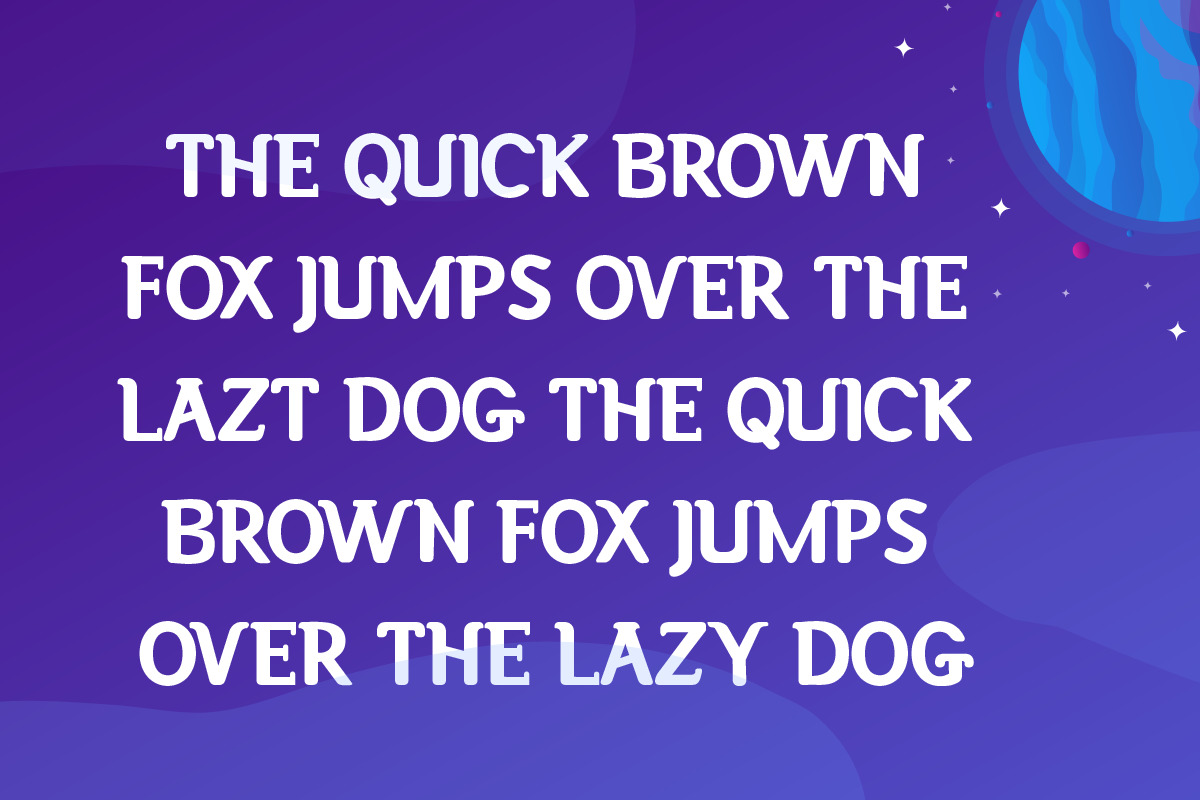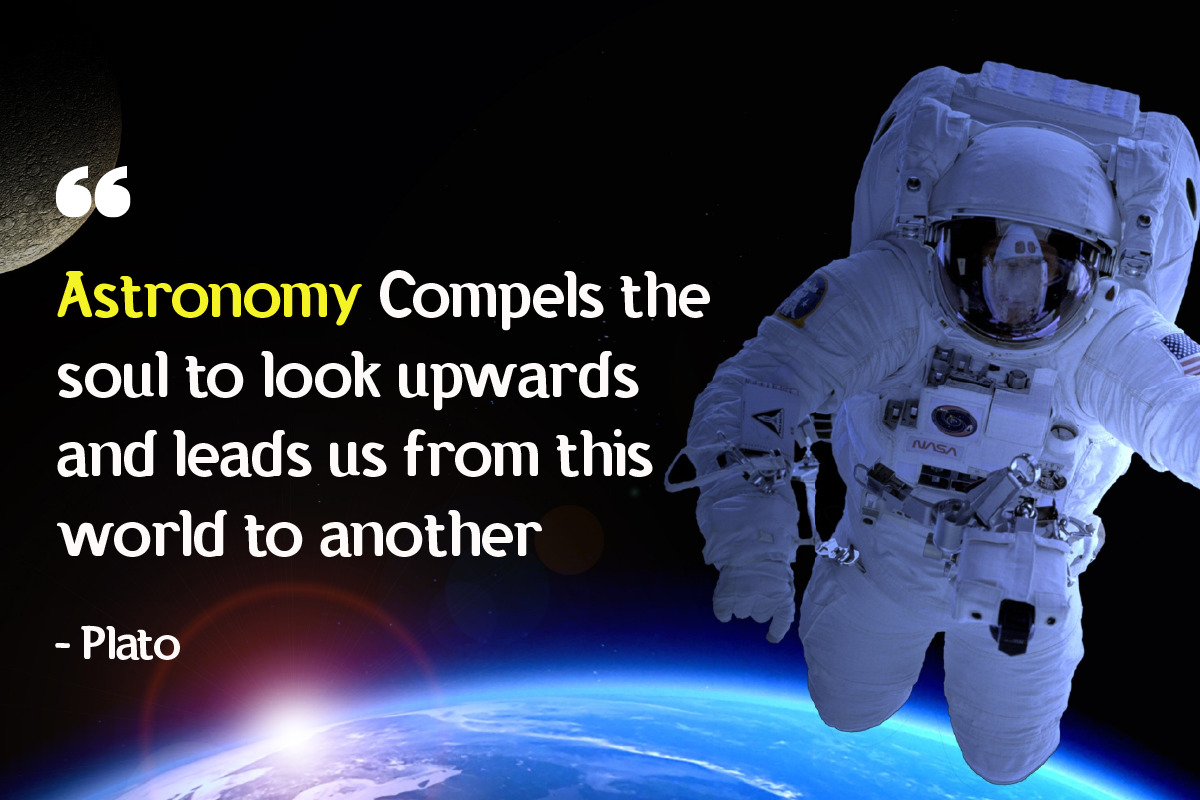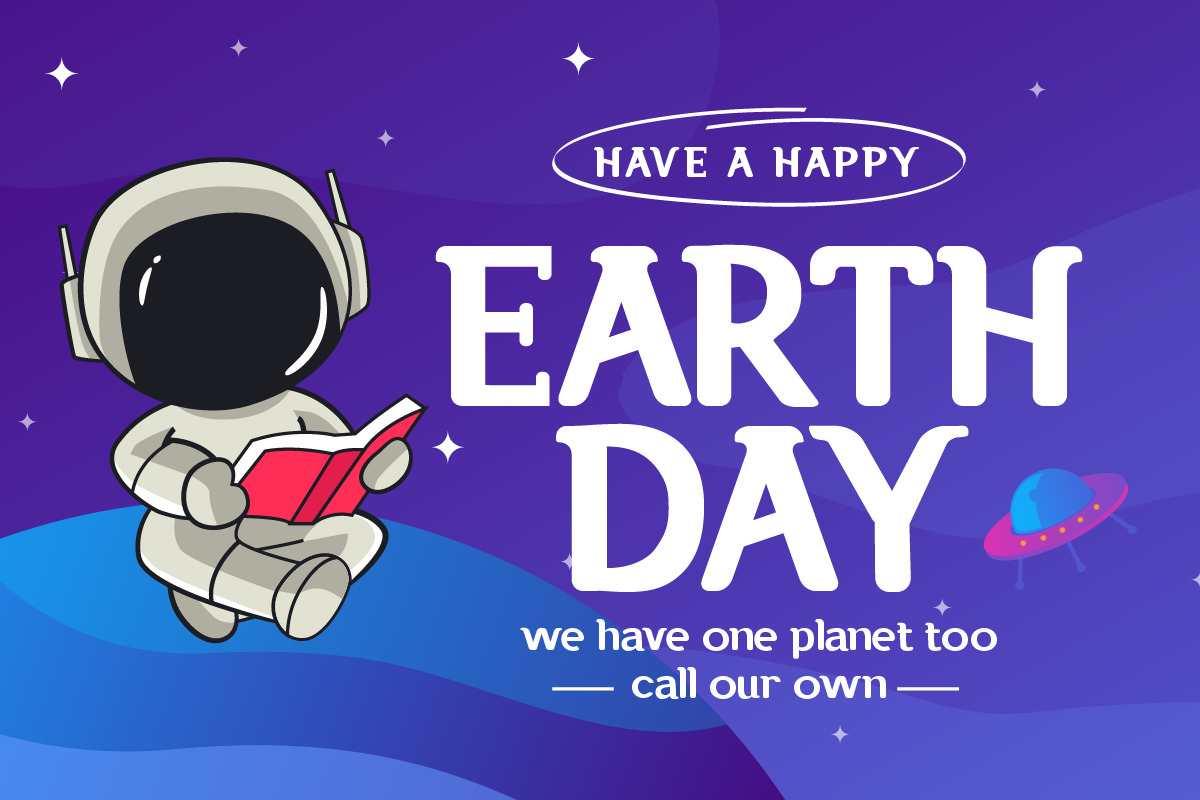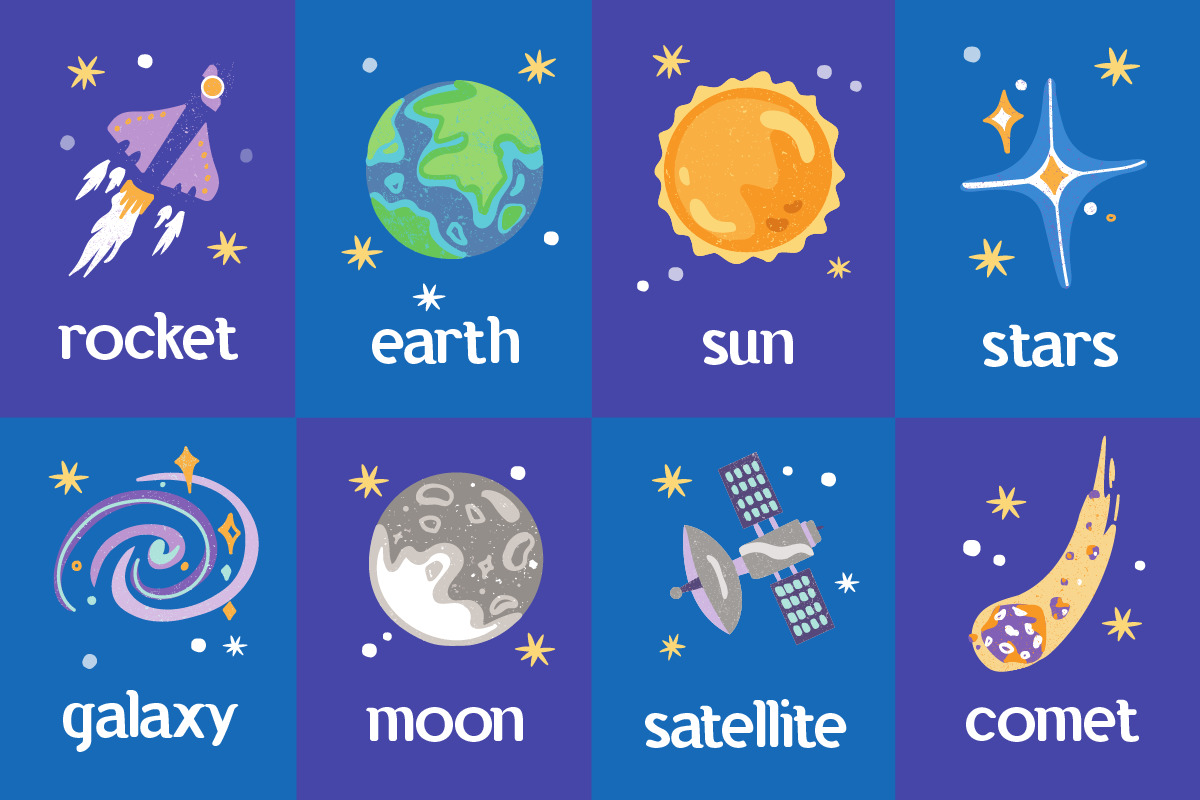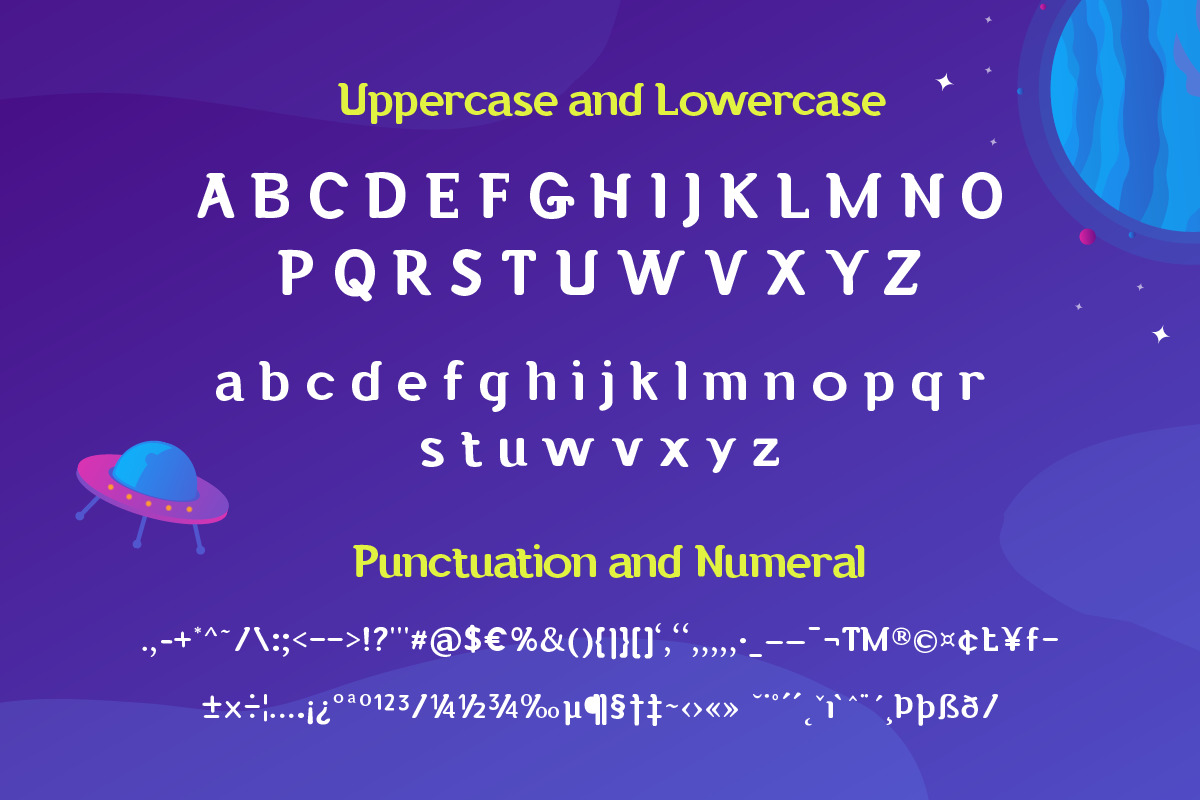
Kluaq - Retro Condensed Font
Introducing Kluaq font - the perfect choice for those who seek a retro-modern and fun typeface. This font brings a unique touch to any design project, with its playful yet professional look. With Kluaq font, you can easily create eye-catching designs that stand out from the rest. Its quirky and playful style is perfect for a wide range of projects, from logos and branding to packaging and advertising. The vintage-inspired design is combined with a modern twist, making Kluaq font the perfect choice for anyone looking to add a touch of personality and charm to their designs. Get creative and have fun with Kluaq font!